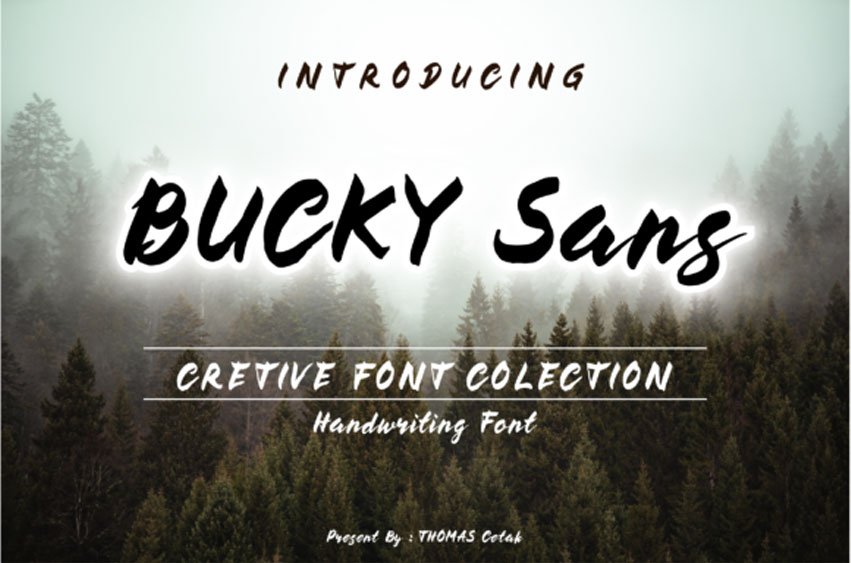
Bucky Font is a retro, casual and timeless brush pen handwritten font.
Apply it to your every creative design and watch them come to life!
Bucky Font is a retro, casual and timeless brush pen handwritten font.
Apply it to your every creative design and watch them come to life!